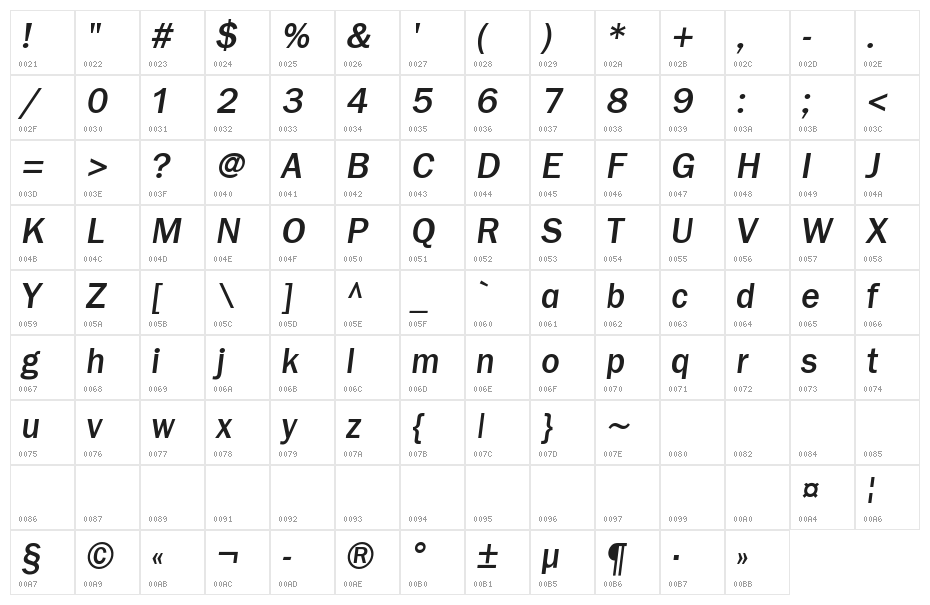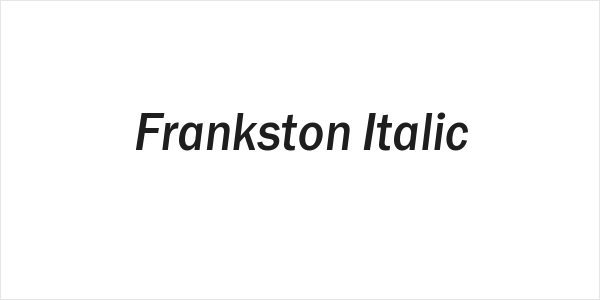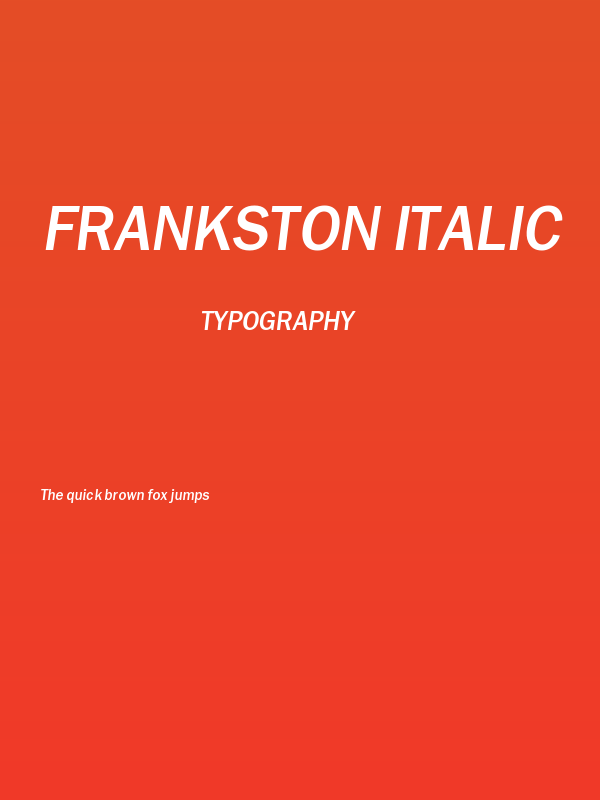
Frankston Italic Font
Frankston Italic Description
This font features a sleek and modern italic style, characterized by its clean lines and smooth curves. The letters are slightly slanted, giving a sense of motion and elegance. The uppercase and lowercase characters maintain a consistent style, with a moderate stroke contrast that enhances readability. The numerals are well-proportioned, aligning seamlessly with the alphabetic characters. Special characters are distinct and clear, making them suitable for various design needs. Overall, this font exudes a professional and contemporary vibe, ideal for projects that require a touch of sophistication.
| Proposed Projects | Ideal for branding, advertising, and editorial design projects that require a modern and elegant touch. |